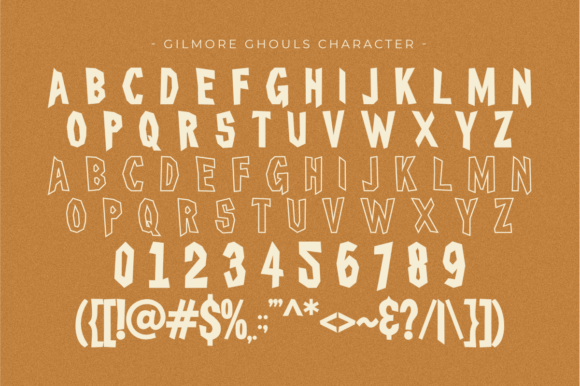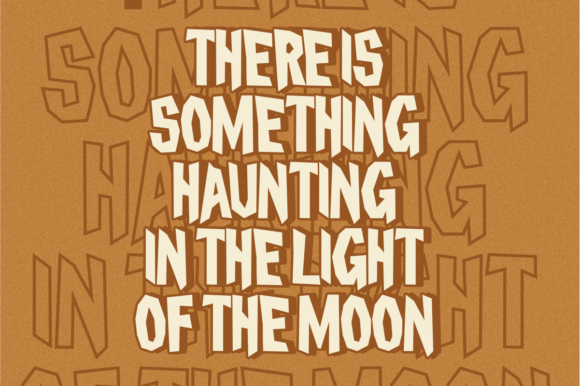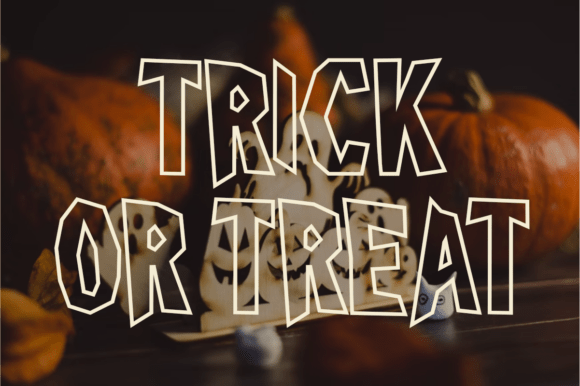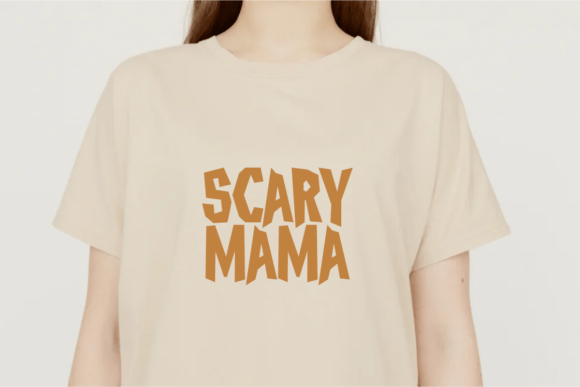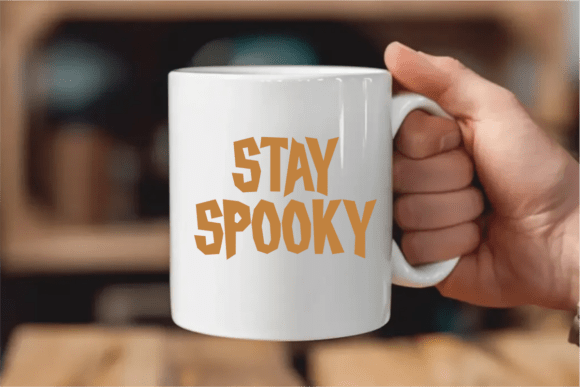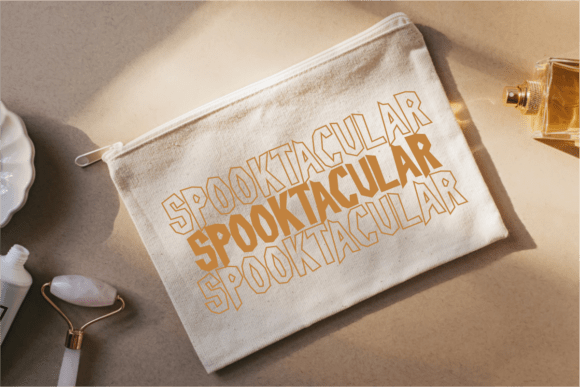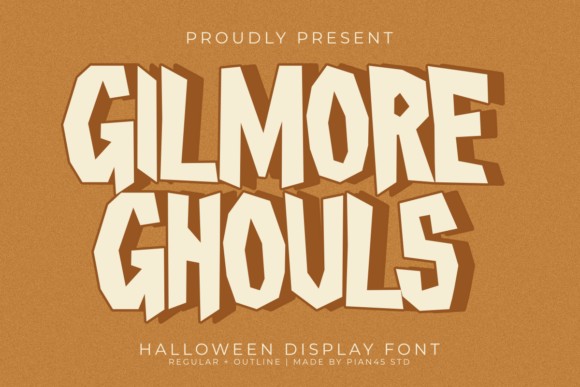
Gilmore Ghouls Font: Add a Touch of Spooky Charm to Your Designs
As the spookiest time of the year approaches, designers and crafters are on the lookout for fonts that can add a touch of eerie elegance and playful charm to their Halloween-themed projects. Look no further than the Gilmore Ghouls font, a quirky Halloween display font that’s perfect for creating eye-catching designs that are sure to cast a spell on your audience.
What is Gilmore Ghouls Font?
Gilmore Ghouls is a bold, playful font that’s designed to bring a fun and spooky vibe to your designs. With its jagged letterforms and cartoonish personality, this font is perfect for capturing the lighthearted and humorous side of Halloween. The font is available in two styles: Regular and Outline, making it versatile and suitable for a wide range of design applications.
Key Features of Gilmore Ghouls Font
- Bold and Playful Design: The Gilmore Ghouls font features bold, jagged letterforms that are sure to grab attention. Its playful design makes it perfect for creating eye-catching posters, party invitations, and social media graphics.
- Cartoonish Personality: The font has a cartoonish personality that adds a touch of whimsy and fun to your designs. It’s perfect for creating designs that are meant to be humorous and lighthearted.
- Available in Regular and Outline Styles: The font is available in two styles: Regular and Outline. This makes it versatile and suitable for a wide range of design applications.
- Eerie yet Playful Vibe: The Gilmore Ghouls font perfectly captures the fun side of Halloween while maintaining a slightly eerie vibe. It’s perfect for creating designs that are meant to be spooky yet playful.
Uses of Gilmore Ghouls Font
The Gilmore Ghouls font is perfect for a wide range of design applications, including:
- Posters and Flyers: Create eye-catching posters and flyers for Halloween events, parties, and promotions.
- Party Invitations: Design spooky yet playful party invitations that are sure to get your guests excited.
- Packaging: Add a touch of spooky charm to your product packaging with the Gilmore Ghouls font.
- Social Media Graphics: Create engaging social media graphics that are sure to grab attention.
Why Choose Gilmore Ghouls Font?
There are many fonts available that can add a touch of spooky charm to your designs, but the Gilmore Ghouls font stands out for several reasons:
- Unique Design: The Gilmore Ghouls font has a unique design that’s sure to grab attention.
- Versatility: The font is available in two styles, making it versatile and suitable for a wide range of design applications.
- Easy to Read: Despite its bold and jagged design, the Gilmore Ghouls font is easy to read, making it perfect for creating designs that need to communicate a message.
Tips for Using Gilmore Ghouls Font
Here are some tips for using the Gilmore Ghouls font in your designs:
- Use it as a Display Font: The Gilmore Ghouls font is perfect for use as a display font. Use it to create eye-catching headlines and titles.
- Pair it with Other Fonts: The Gilmore Ghouls font can be paired with other fonts to create a unique and interesting design.
- Experiment with Colors: The Gilmore Ghouls font can be used with a wide range of colors. Experiment with different colors to find the one that works best for your design.
The Gilmore Ghouls font is a quirky Halloween display font that’s perfect for adding a touch of spooky charm to your designs. With its bold, jagged letterforms and cartoonish personality, this font is sure to grab attention and cast a spell on your audience. Whether you’re designing posters, party invitations, packaging, or social media graphics, the Gilmore Ghouls font is a great choice.